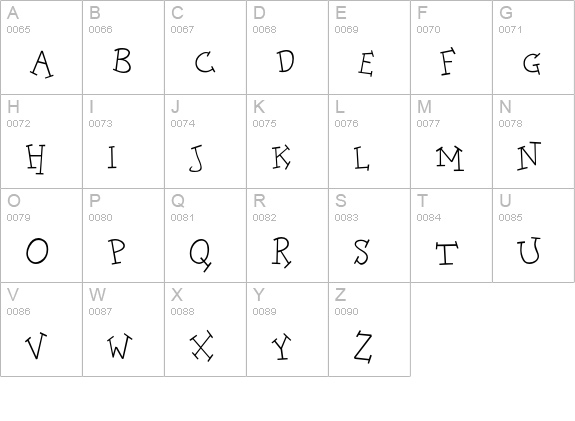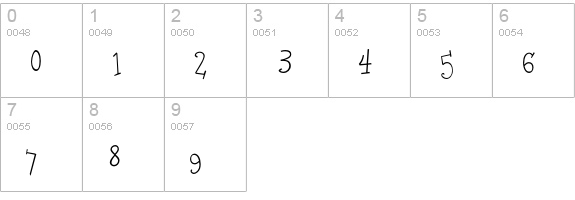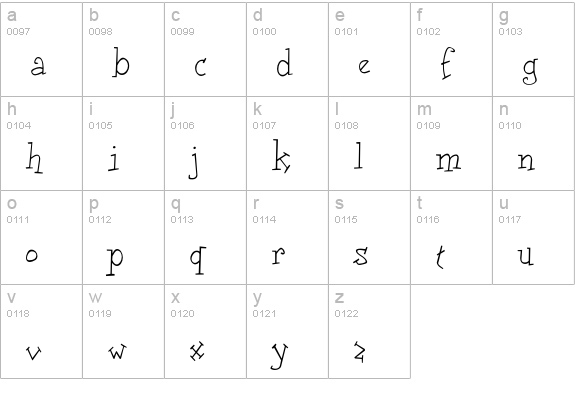
DoloresLight Font Details
DoloresLight font is a sleek and elegant typeface that exudes sophistication and modernity. With its delicate lines and graceful curves, this font is perfect for adding a touch of finesse to any design project. Whether you are working on a branding campaign, a website, or a print advertisement, DoloresLight font will elevate your work to a new level of style. What's even better is that DoloresLight font is available for free download at FontsMarket.com. This means you can easily access this beautiful typeface and incorporate it into your projects without having to worry about any cost. With its excellent readability and timeless appeal, DoloresLight font is a must-have for any designer looking to make a statement. Download it now and see the difference it can make in your creations.